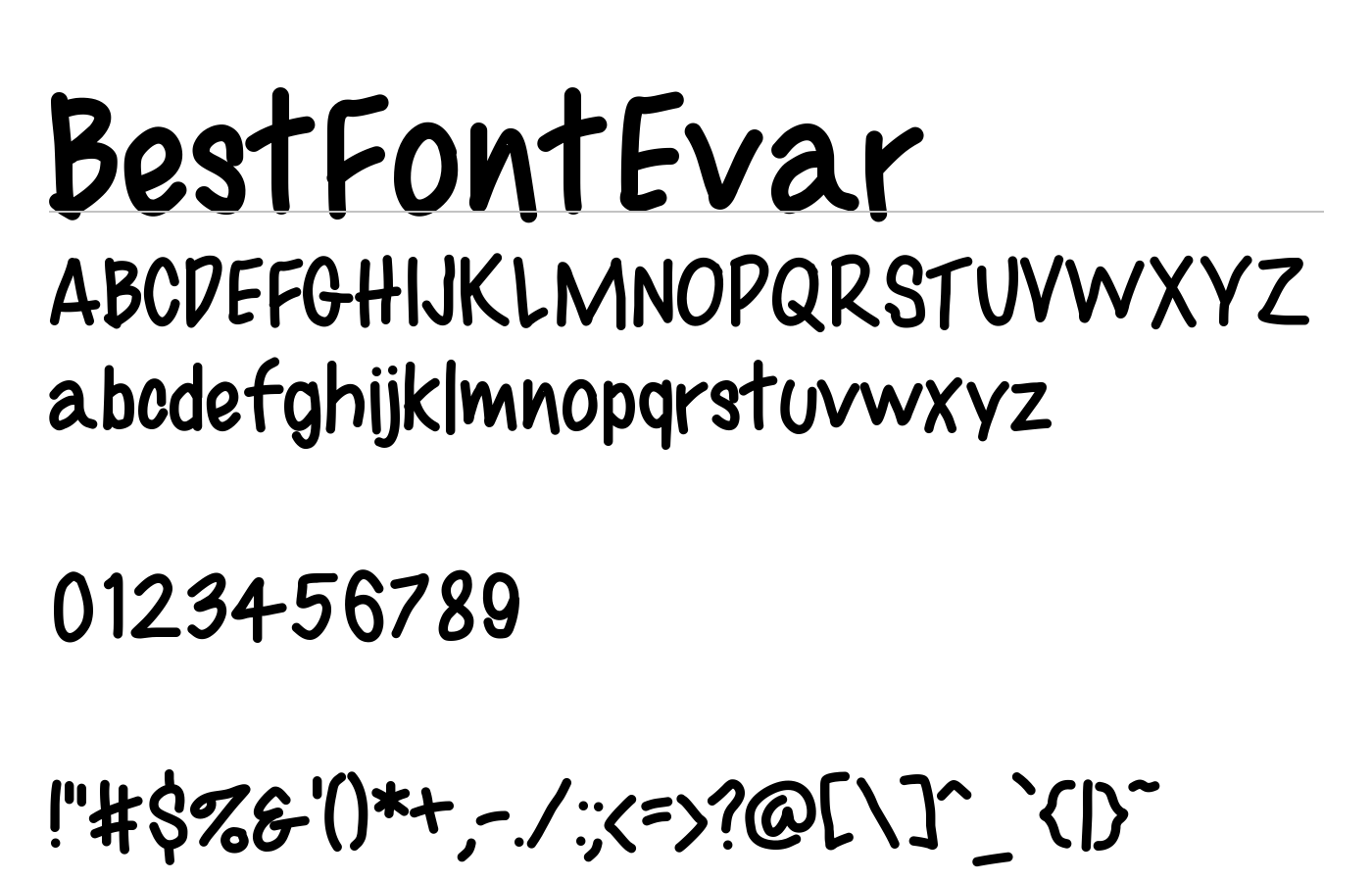
BestFontEvar is a casual, hand-drawn sans serif font that feels friendly and approachable with its irregular, rounded strokes and moderate x-height. Its playful yet legible letterforms make it perfect for informal designs like children's books, creative projects, and personalized branding where a warm, human touch is desired. This font shines best in headlines, logos, and any playful context that benefits from a handwritten, authentic vibe.
BestFontEvar Font
About BestFontEvar Font